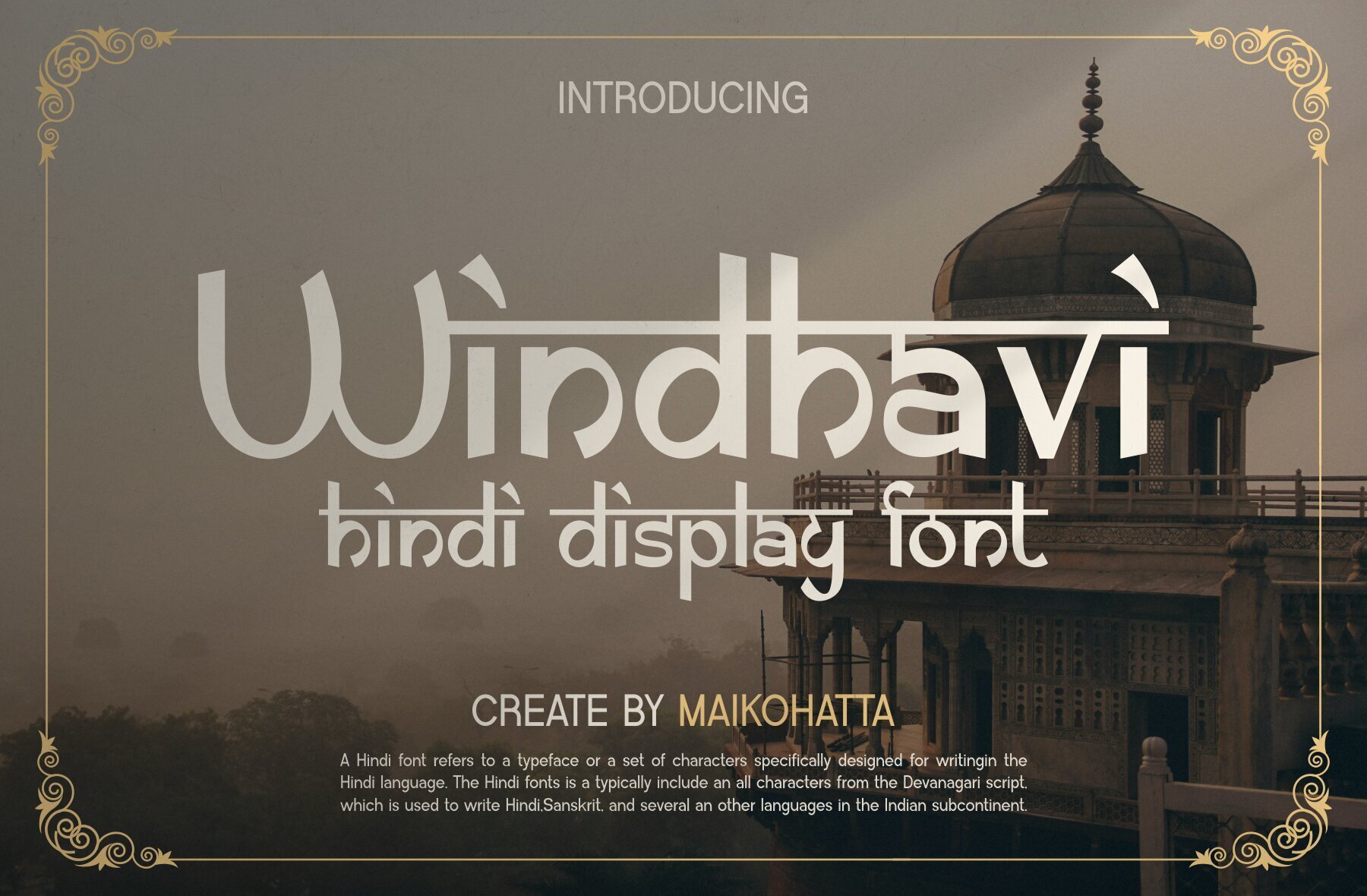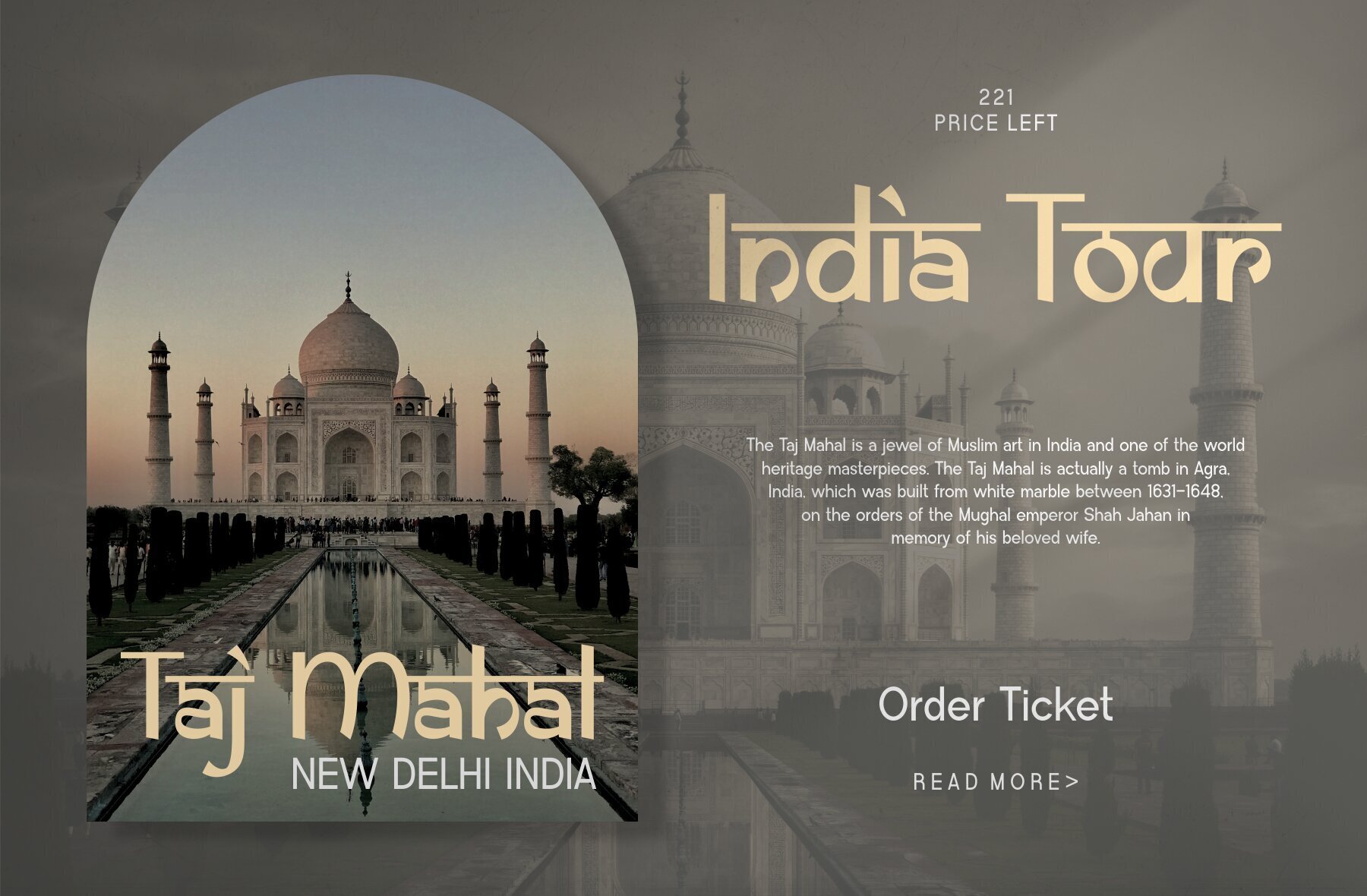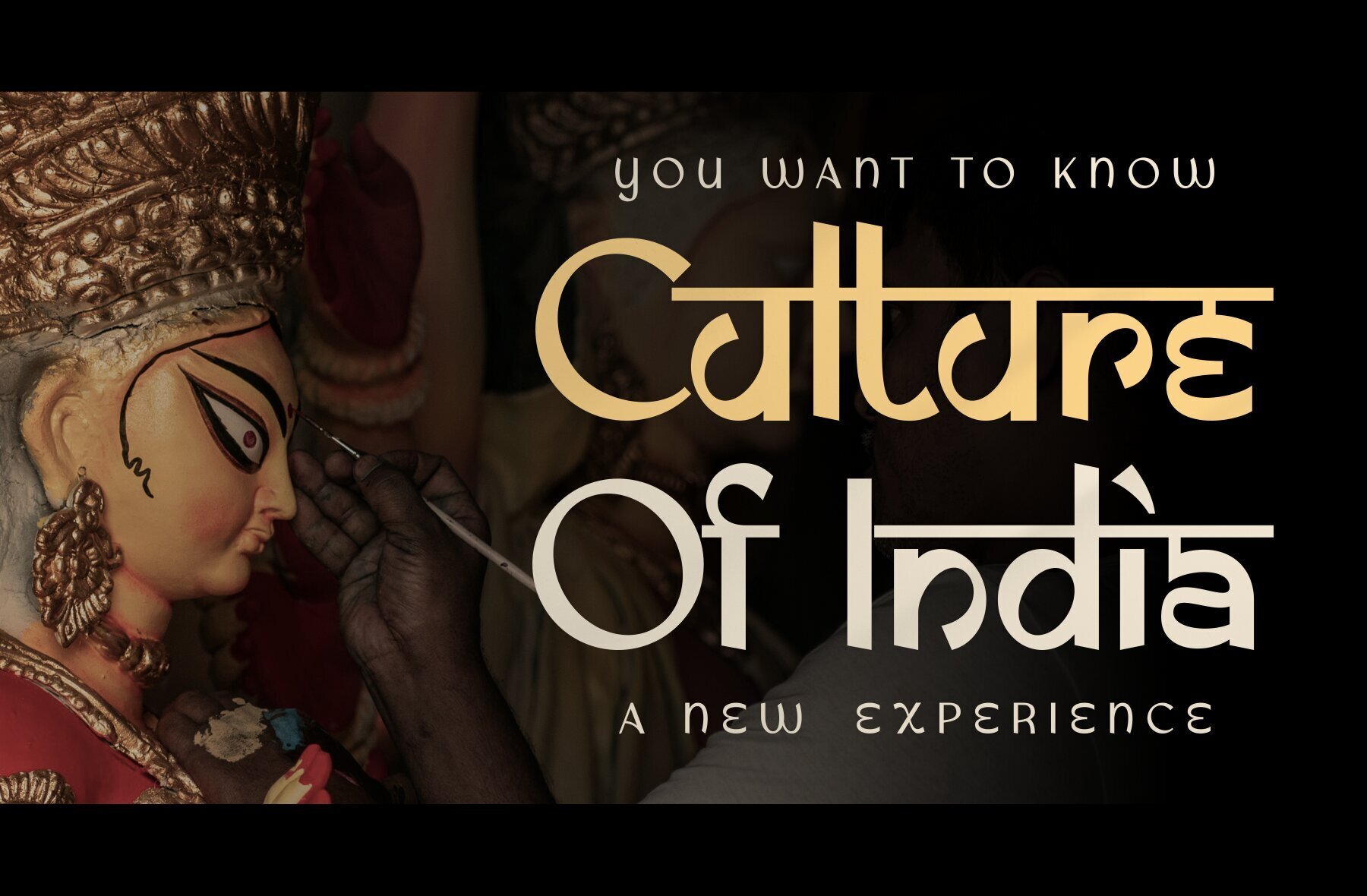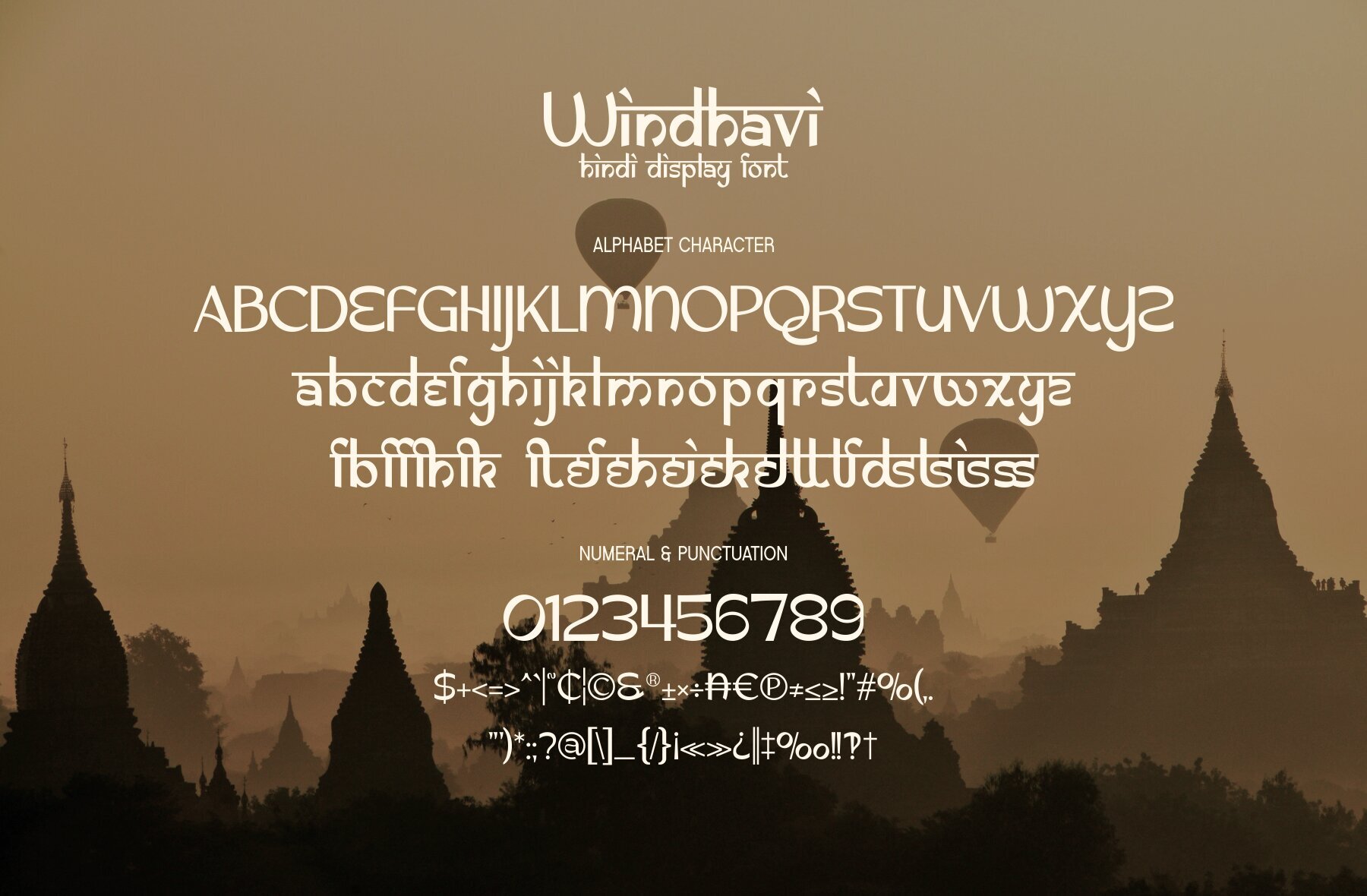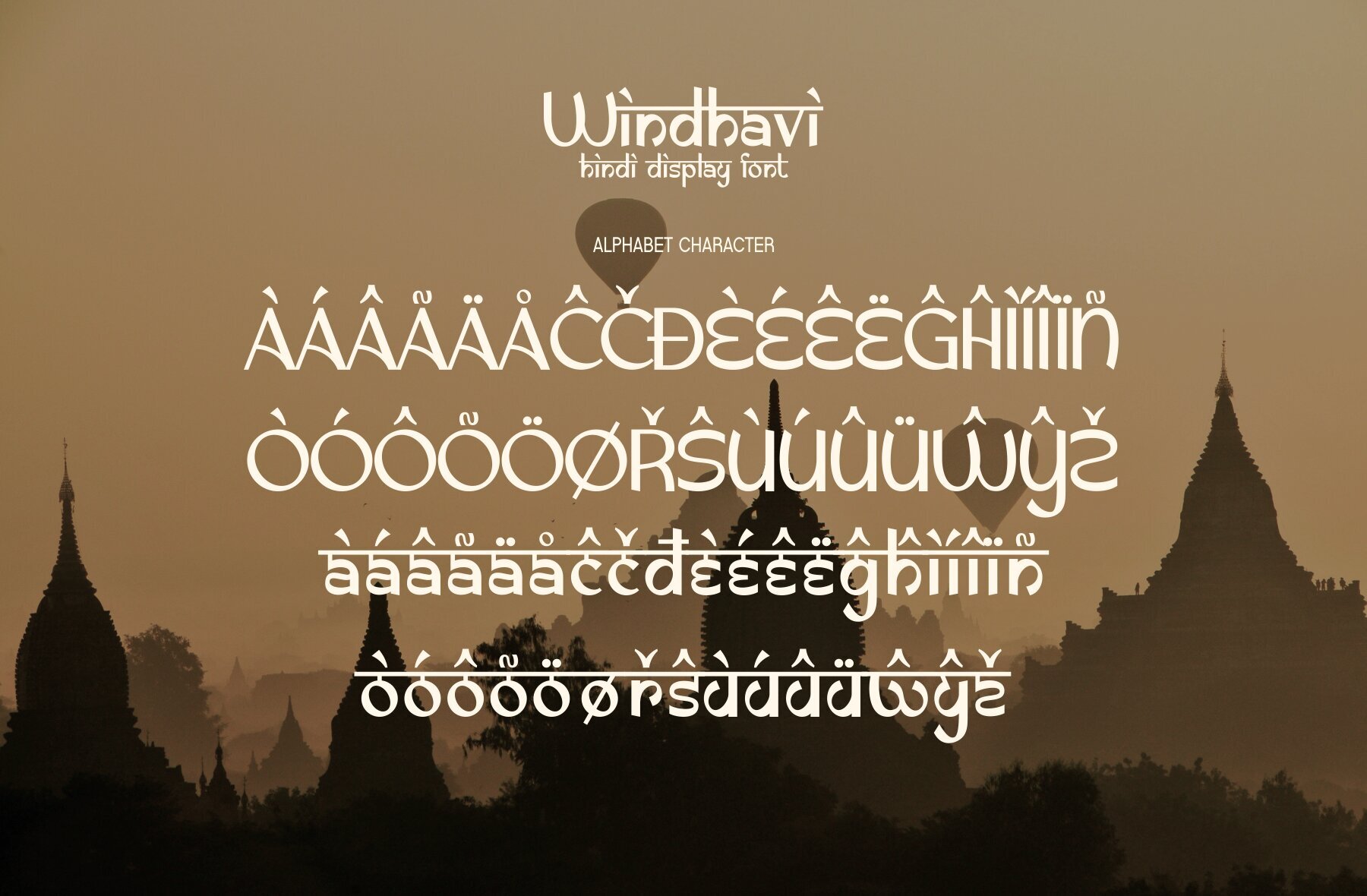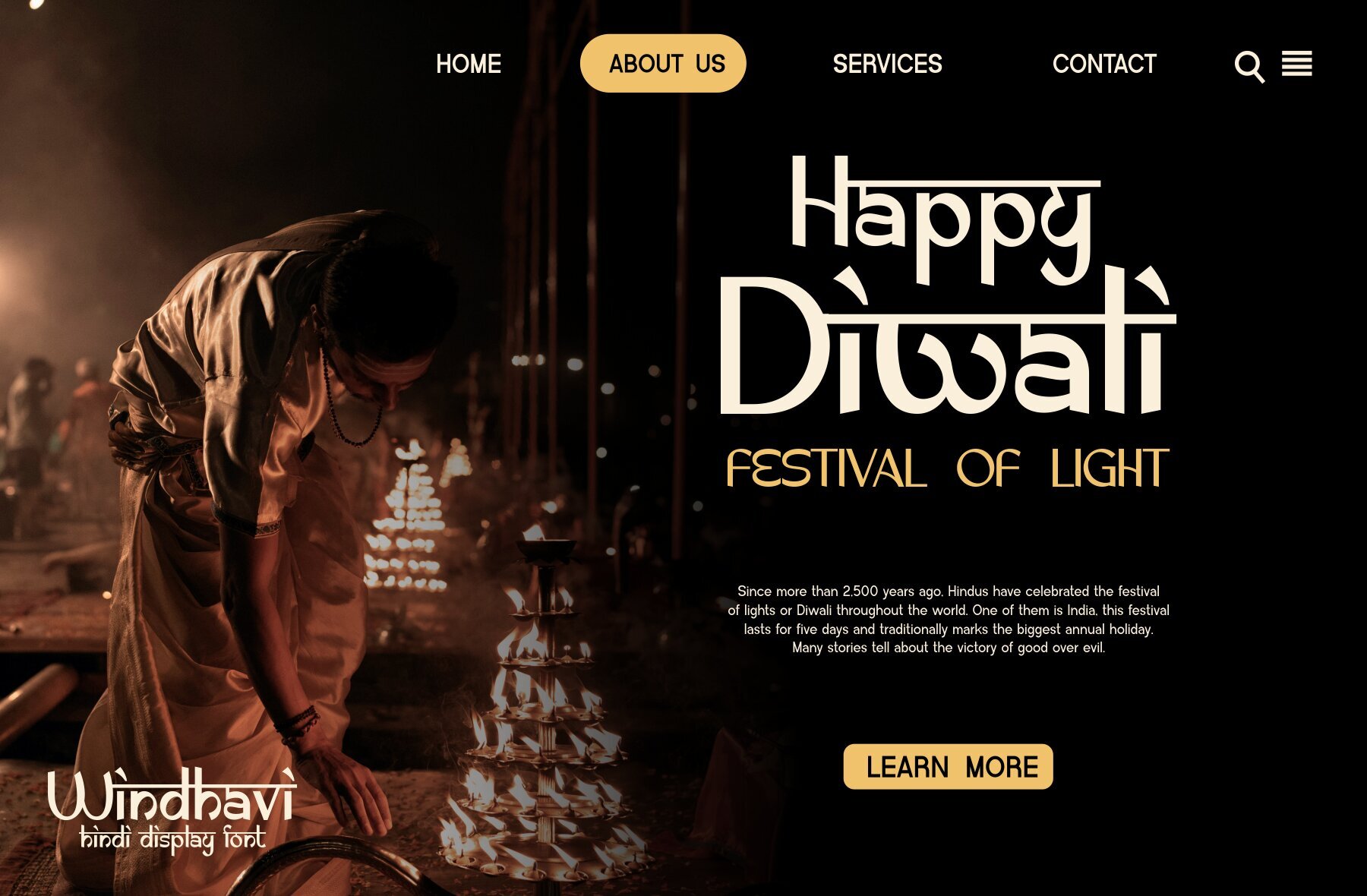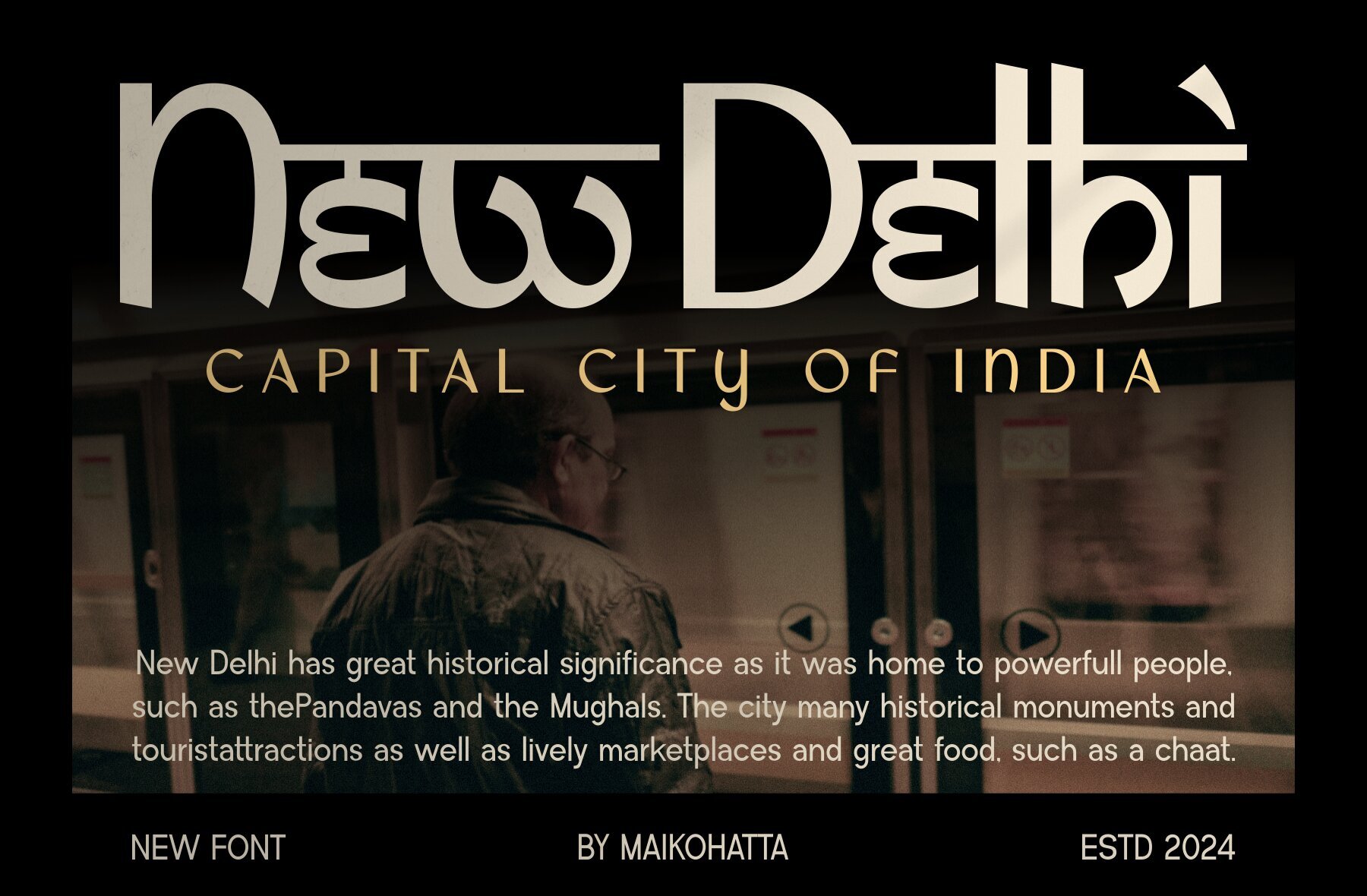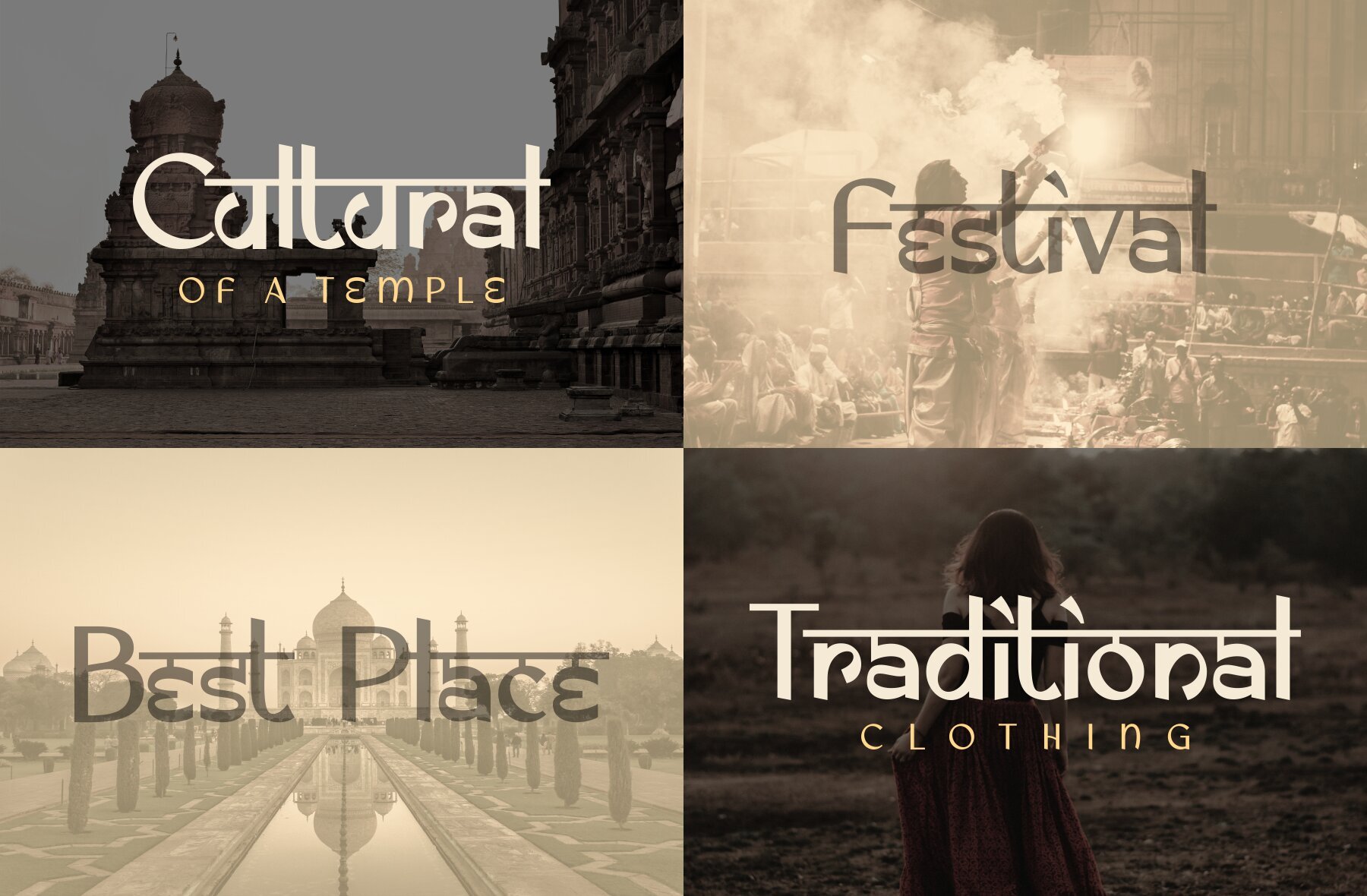
Windhavi Font
Windhavi Regular
Windhavi is a bold and authentic display font perfect for a diverse range of branding projects. Ideal for logos, template designs, esports, and more, this font excels in various contexts.Windhavi: Bold Hindi Display Font